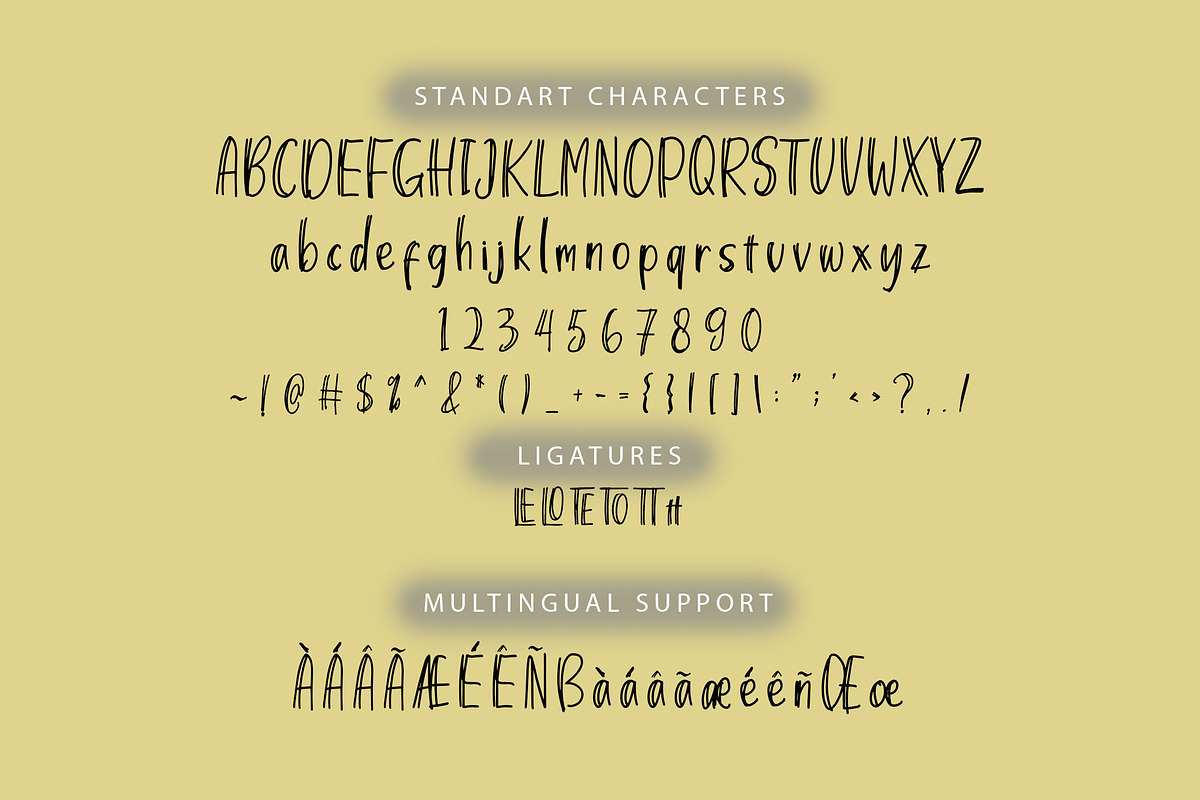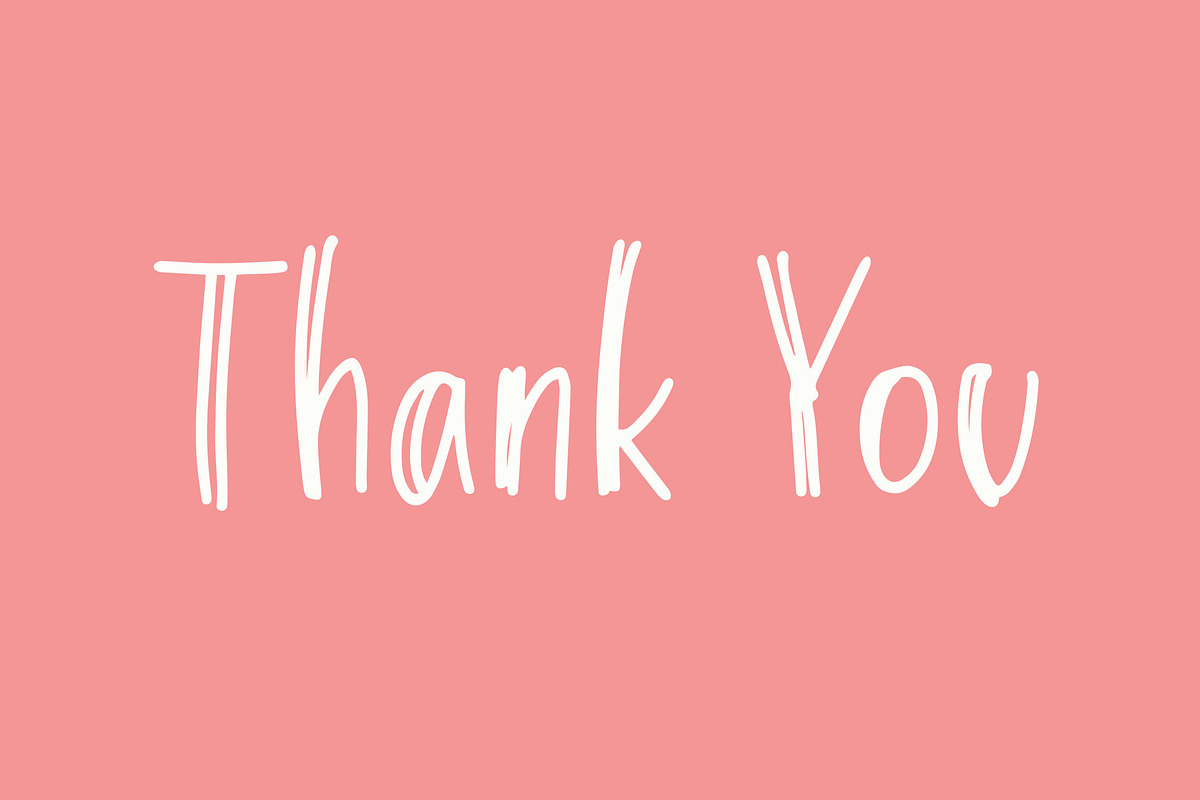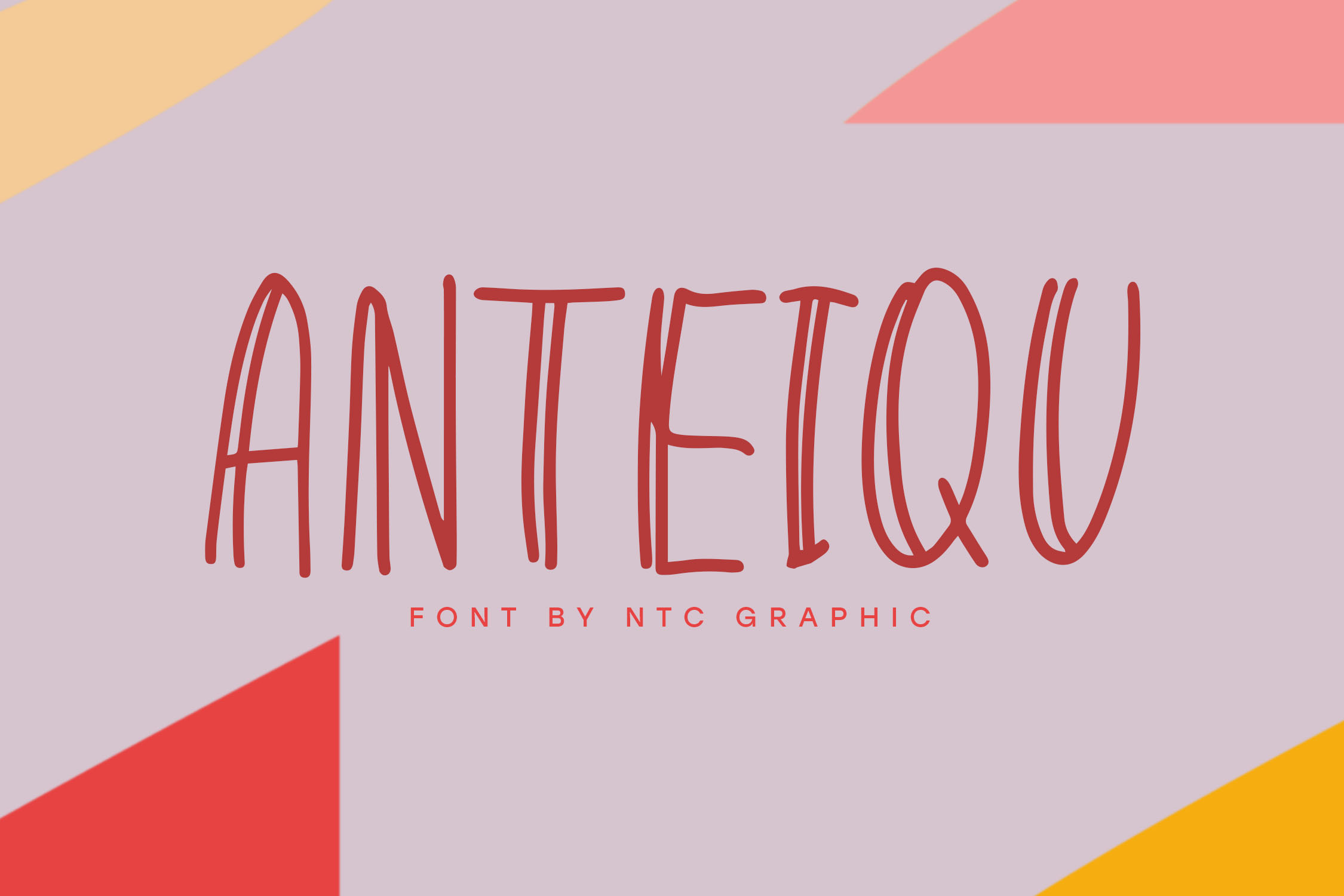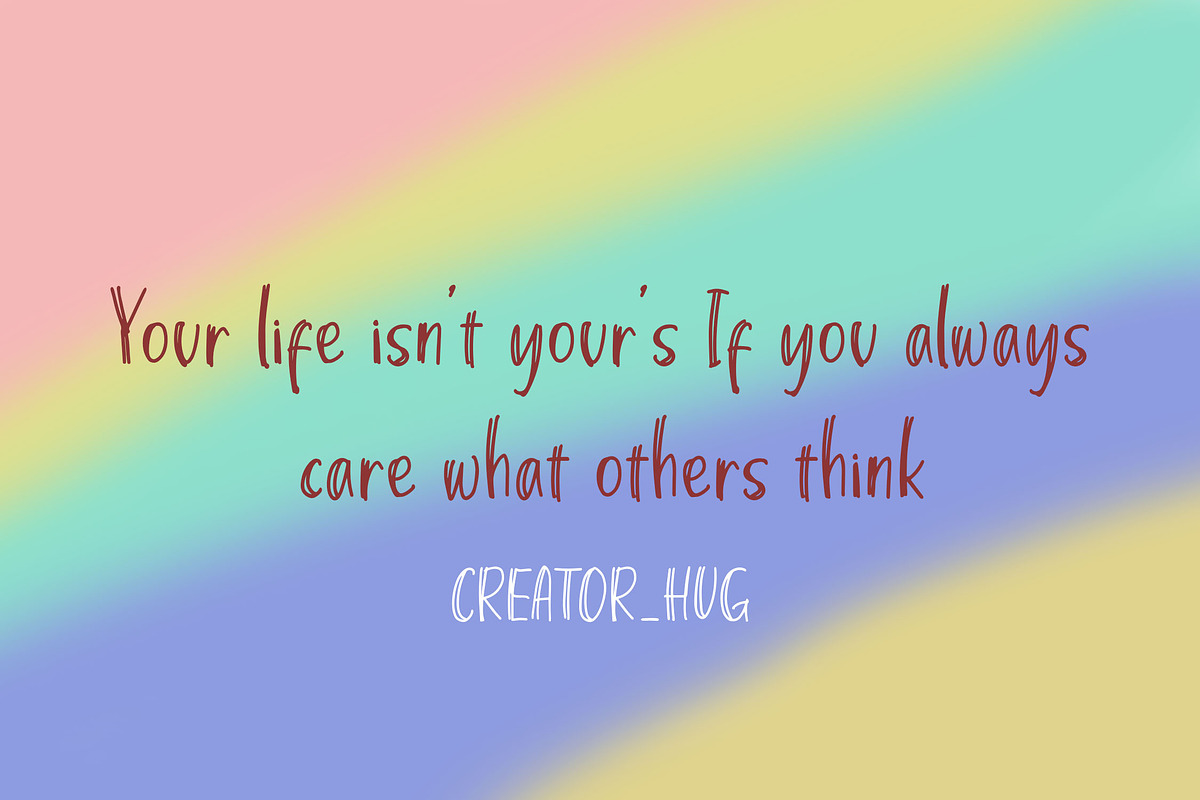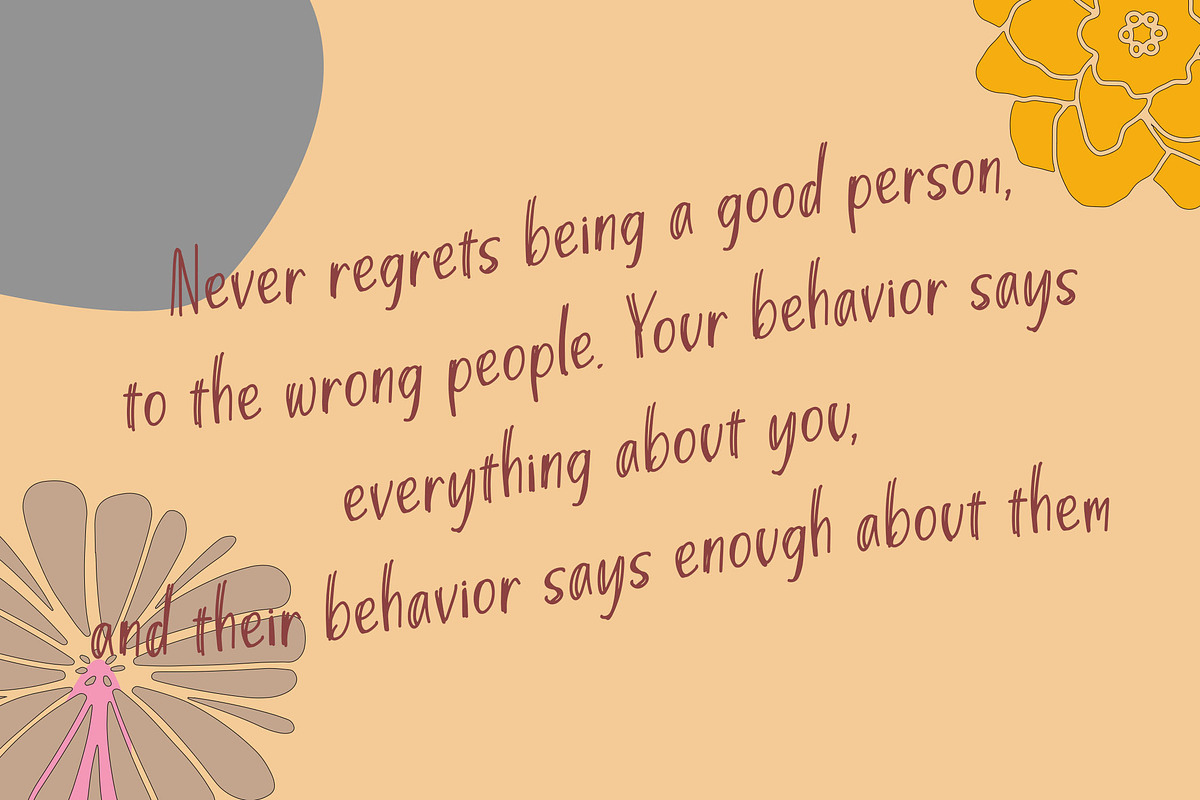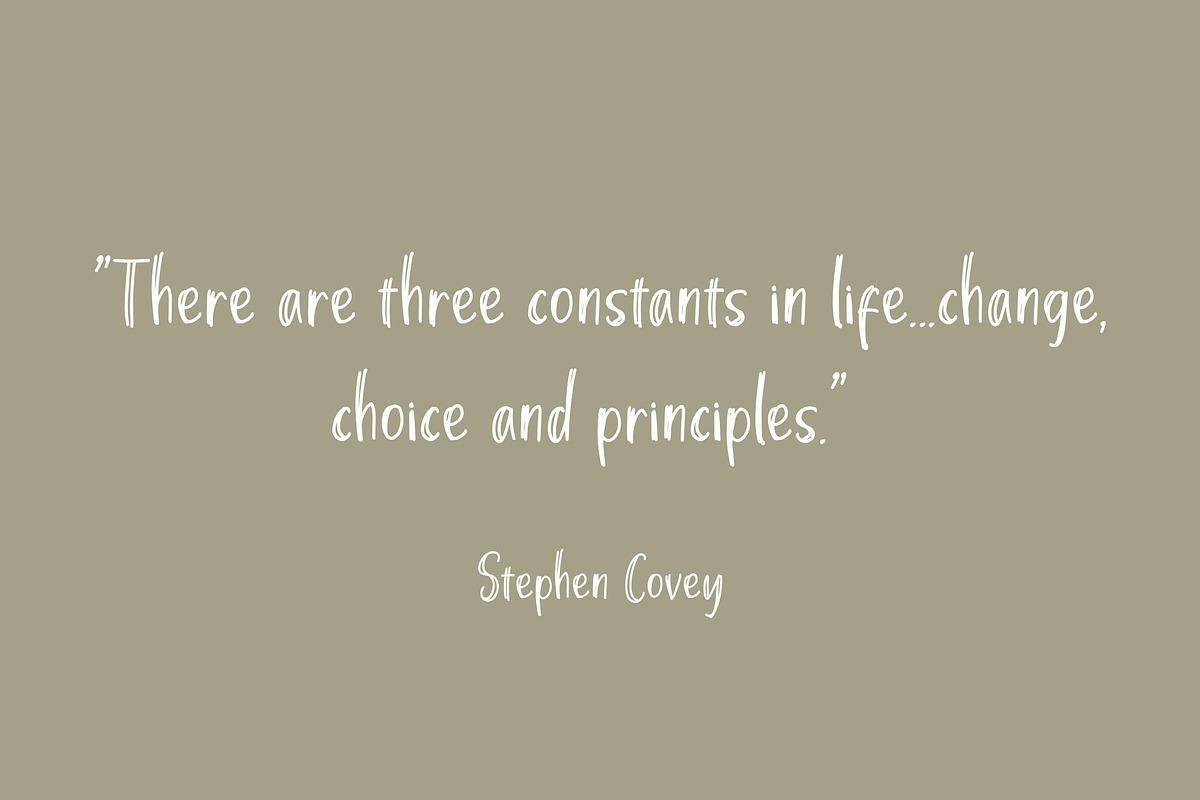
ANTEIQU Handwritten Playful Font
ANTEIQU is a playful display font with handwritten style. Is a font style that is made with unique shapes font characters are really good. Can be applied to support the graphic appearance of the product to be more attractive.
- Stylistic Alternate